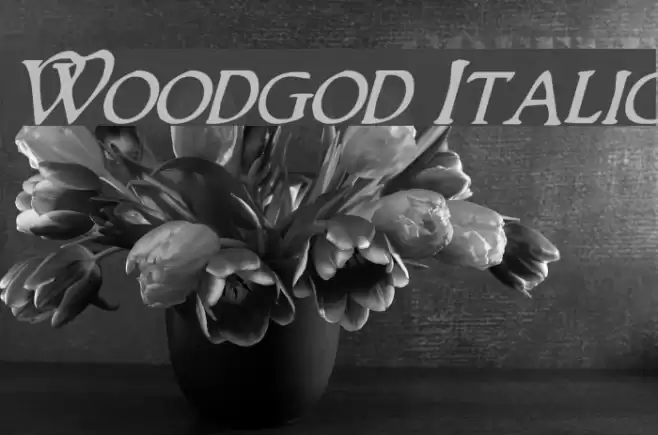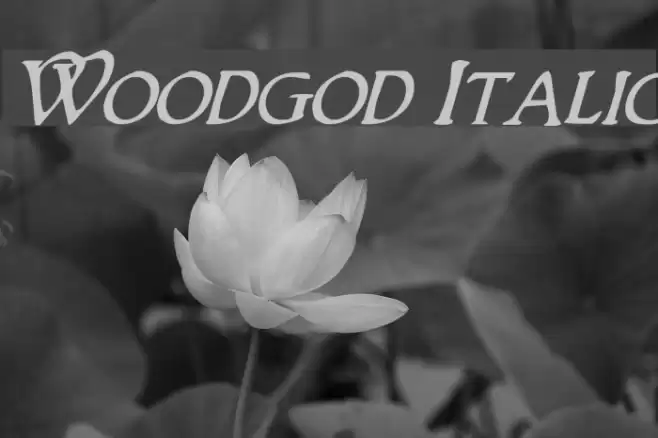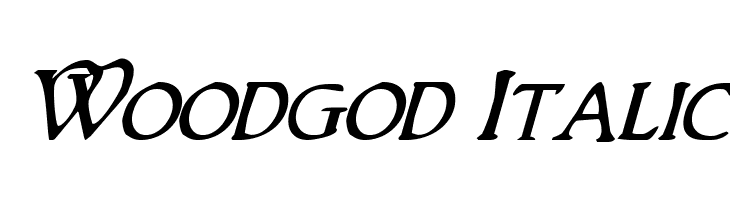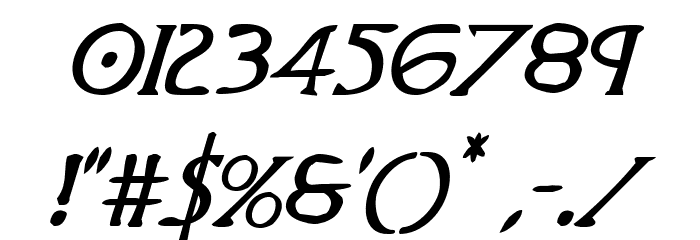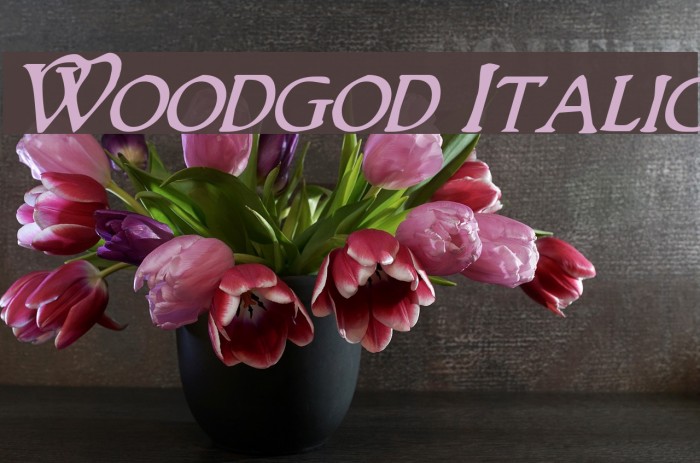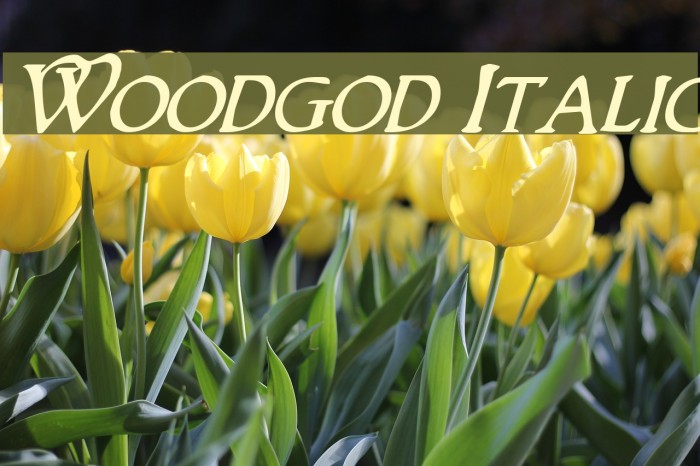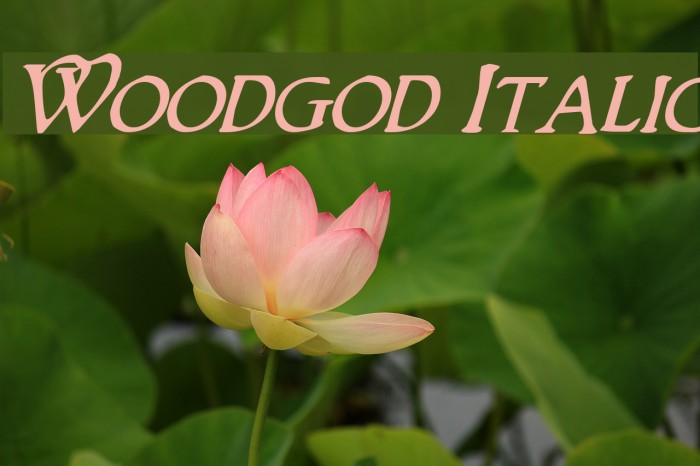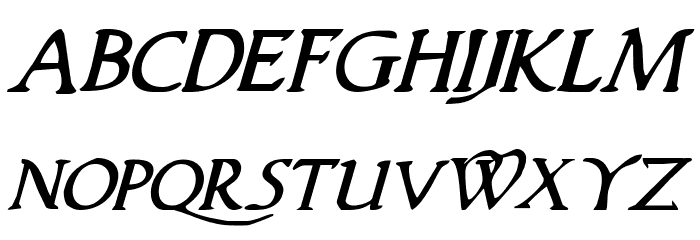
Woodgod Italic Font
Woodgod Italic Description
This font features a dynamic and elegant italic style with a calligraphic influence. The letters are slightly slanted, giving a sense of motion and fluidity. The strokes are moderately thick, with some variation in width that adds a touch of sophistication. The serifs are pronounced yet not overly ornate, maintaining a balance between decorative and readable. The overall appearance is both classic and modern, making it versatile for various design needs. The numerals and special characters are consistent with the letterforms, ensuring a cohesive look across all text elements.
An elegant italic font with calligraphic influences and moderate stroke contrast from Uncategorized fonts.
- Proposed Projects: Ideal for wedding invitations, elegant branding, book covers, and high-end product packaging.
- Overall Style: Classic